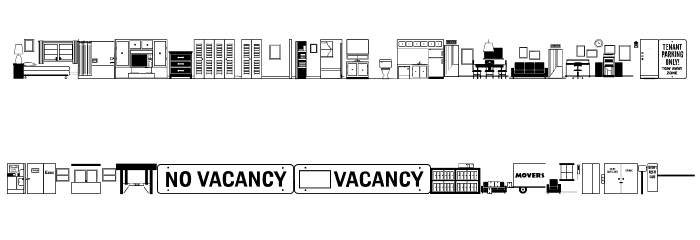
Apartment Life JL Font
Apartment Life JL Description
This font is a decorative and playful representation of apartment life, featuring a series of detailed illustrations that depict various elements of an apartment complex. Each character is creatively designed to resemble different aspects of apartment living, such as furniture, appliances, and signage. The font is highly illustrative, making it more of an art piece than a traditional typeface. It captures the essence of urban living with a whimsical touch, perfect for projects that require a unique and eye-catching design element.
A decorative font with illustrations depicting apartment life elements from Dingbats fonts.
- Proposed Projects: Ideal for creative projects such as posters, flyers, or advertisements related to real estate, interior design, or urban living themes.
- Use Case: Logos, Posters, Creative Projects